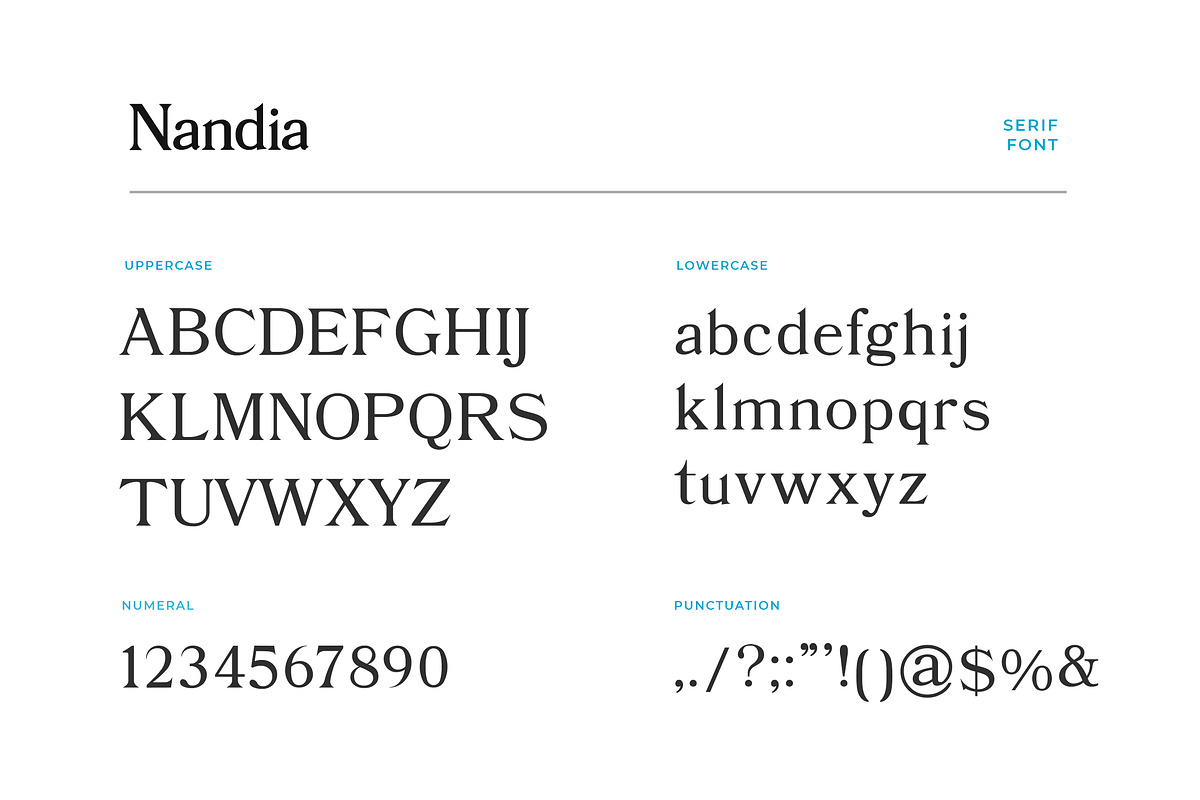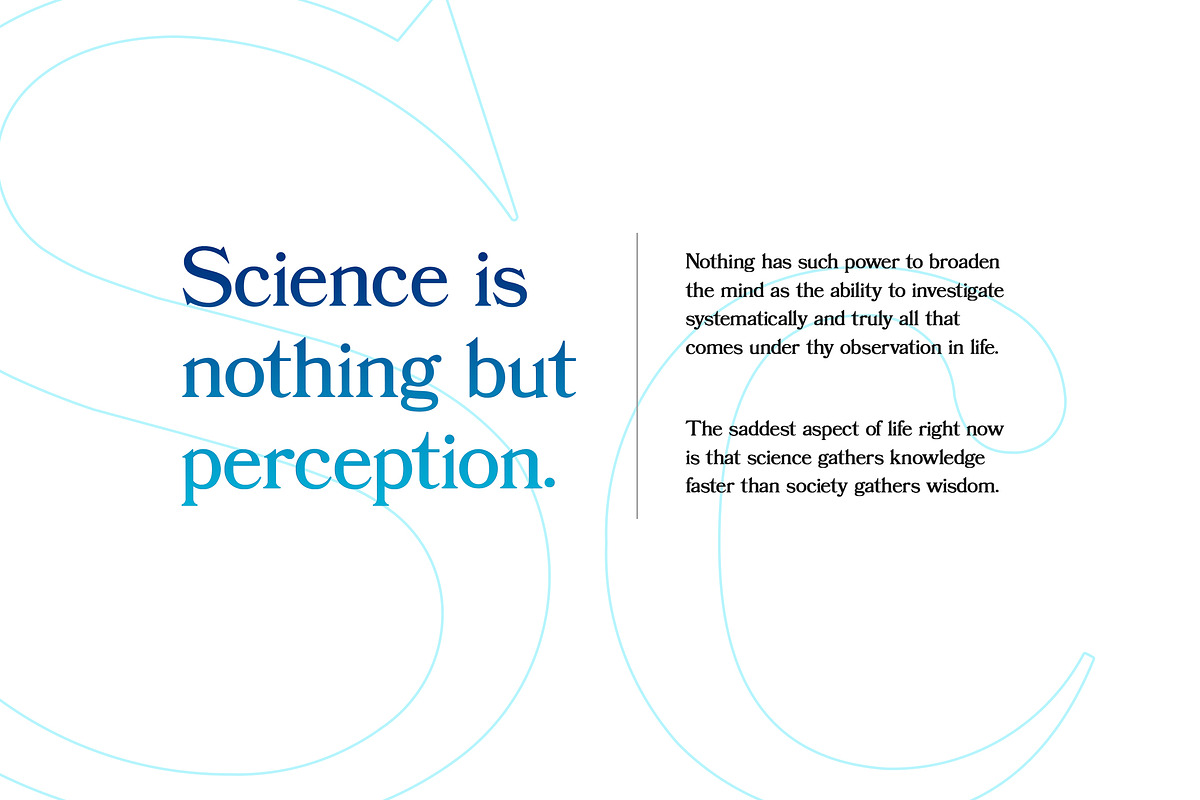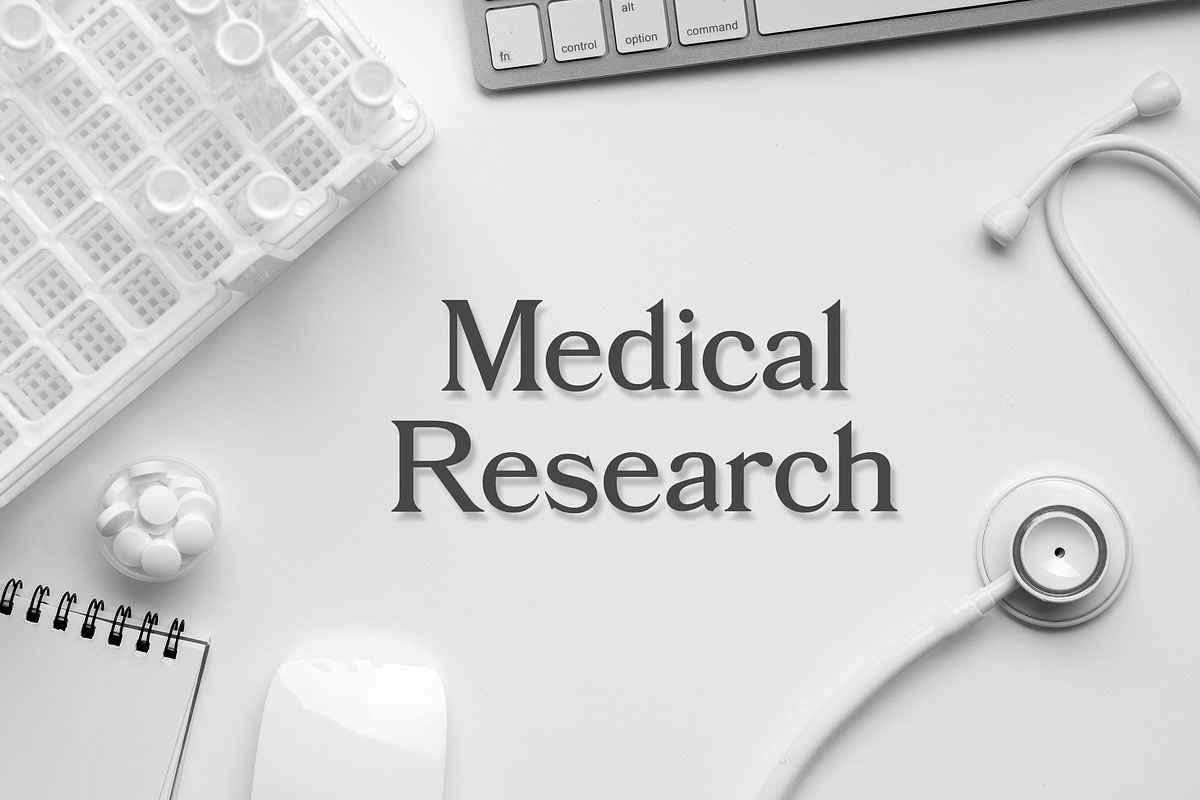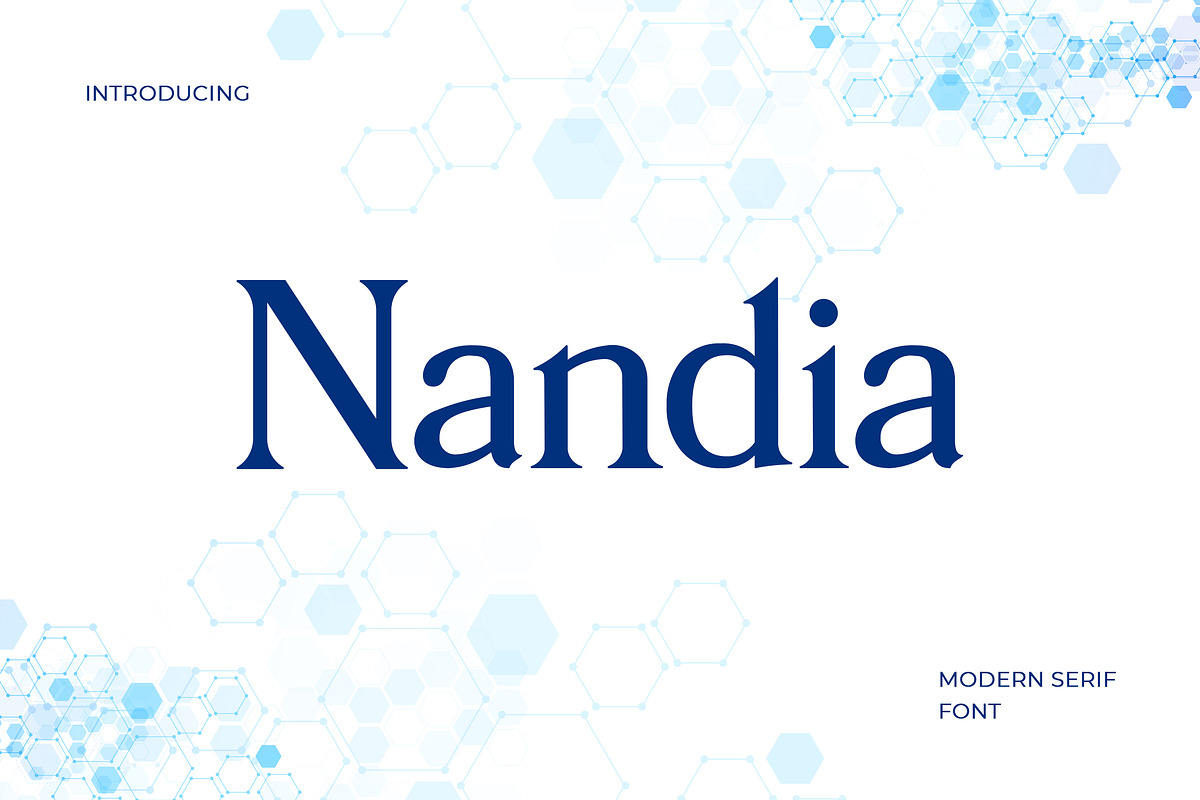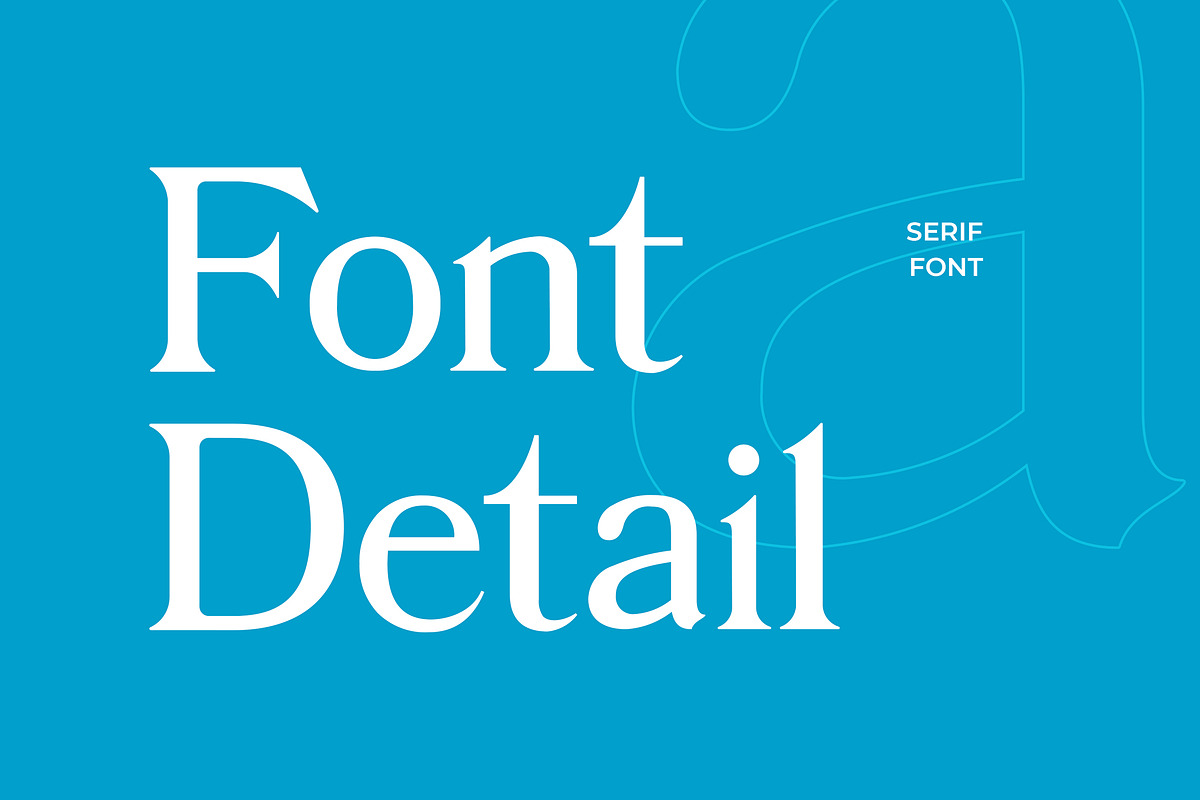
Nandi Modern Serif Font
Nandia is a modern serif font inspired by transitional and contemporary typefaces. Mondia has been designed with high-contrast character ratio to give an elegant touch, and high x-height to give sentences more legibility. Nandia offers many possibilities to be applied in many graphic or editorial projects. Manufacture quote text, logotype, header magazine, t-shirt design, and concept handmade designs, etc.